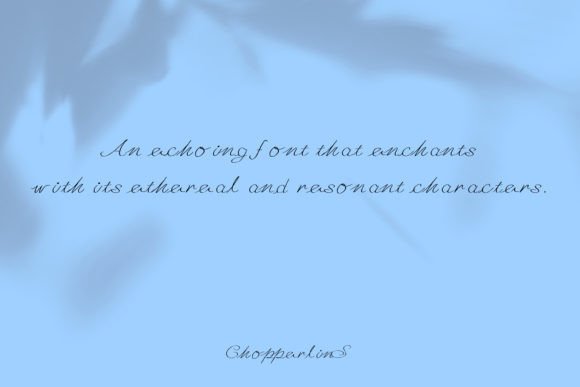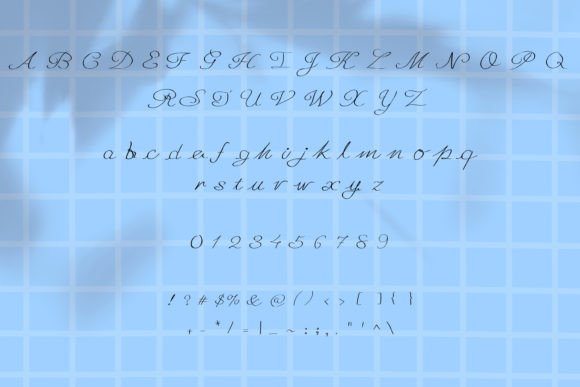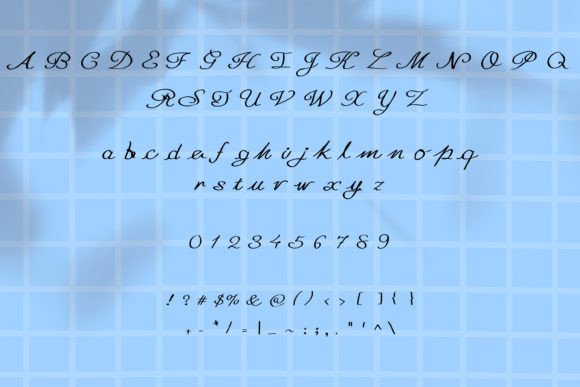
Discover the Enchanting Echo Font: A Timeless Typeface for Elegant Designs
In the realm of typography, few fonts manage to captivate the imagination quite like the Enchanting Echo font. This enchanting typeface is a masterful blend of classic elegance and modern sophistication, making it an ideal choice for designers and crafters seeking to infuse their projects with a touch of timeless beauty. With its graceful and flowing letterforms, Enchanting Echo weaves a spell of refinement and luxury, perfect for those who appreciate the art of fine typography.
The Essence of Enchanting Echo: Elegance and Sophistication
At the heart of Enchanting Echo’s appeal lies its elegant design. The font’s smooth curves and intricate details create a harmonious visual experience, adding a sense of sophistication to any design. Whether used for branding, invitations, editorial layouts, or any other creative project, Enchanting Echo brings a delicate balance between classic aesthetics and modern appeal. This balance ensures that the font remains versatile, suitable for a wide range of applications, from digital media to print.
Versatility Across Mediums
One of the standout features of Enchanting Echo is its versatility. This font transitions seamlessly across various mediums, including digital and print. In digital applications, such as website design, mobile apps, and social media graphics, Enchanting Echo adds a layer of elegance and professionalism. In print, it enhances the visual appeal of stationery, posters, magazines, and books, offering a consistent and high-quality aesthetic. This adaptability makes Enchanting Echo a valuable asset for designers who work across multiple platforms.
Crafting with Enchanting Echo: Tips for Designers and Crafters
For designers and crafters looking to make the most of Enchanting Echo, here are a few tips:
- Pair with Complementary Fonts: Combine Enchanting Echo with simpler, sans-serif fonts for body text to create a striking contrast and enhance readability.
- Experiment with Colors: While Enchanting Echo looks stunning in classic black and white, don’t be afraid to experiment with colors that match your brand or project’s palette.
- Pay Attention to Spacing: The elegant nature of Enchanting Echo means that it can sometimes appear dense. Adjusting the spacing between letters and lines can help maintain a clean and sophisticated look.
- Use it for Headers and Highlights: Given its decorative nature, Enchanting Echo is perfect for headers, titles, and highlights. Use it sparingly to draw attention and add emphasis.
The Power of Typography: Evoking Enchantment
Typography is a powerful tool in design, capable of evoking emotions, setting tones, and capturing the imagination. Enchanting Echo is a testament to this power, demonstrating how a well-designed font can transform a project from ordinary to extraordinary. Its enchanting letterforms not only add a visual appeal but also contribute to the narrative and atmosphere of a design, making it a compelling choice for creatives.
Conclusion: A Timeless Choice for Elegant Designs
In conclusion, the Enchanting Echo font stands as a reliable choice for those seeking to infuse their projects with an air of elegance and sophistication. Its timeless allure, versatile design, and enchanting letterforms make it suitable for a wide range of creative applications. Whether you’re a designer working on a branding project, a crafter creating bespoke invitations, or simply someone who appreciates the beauty of typography, Enchanting Echo offers a world of possibilities. By incorporating this captivating typeface into your work, you’re not just choosing a font; you’re embracing a tradition of elegance and refinement that will elevate your designs to new heights.
Discover the magic of Enchanting Echo and let its enchanting spell transform your creative projects into timeless pieces of art.